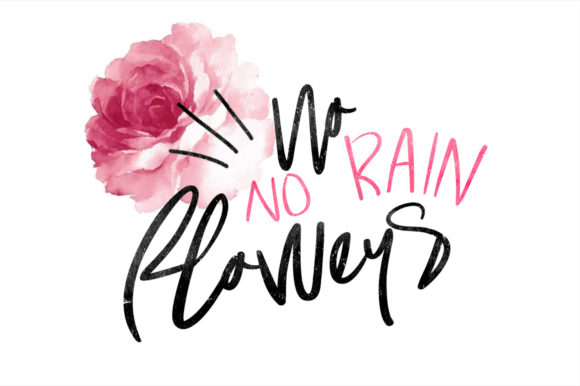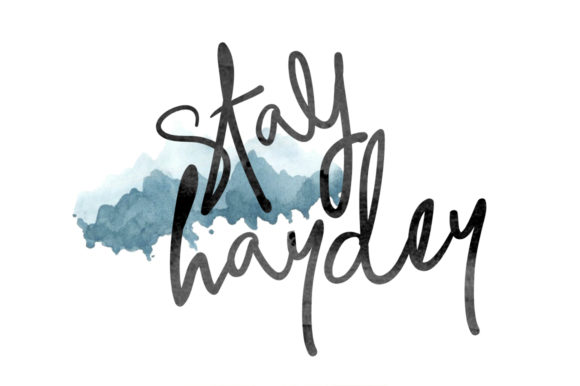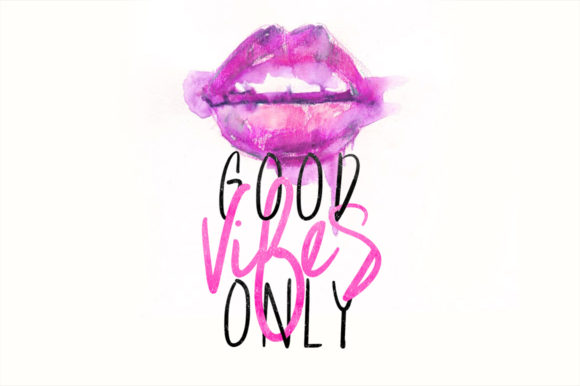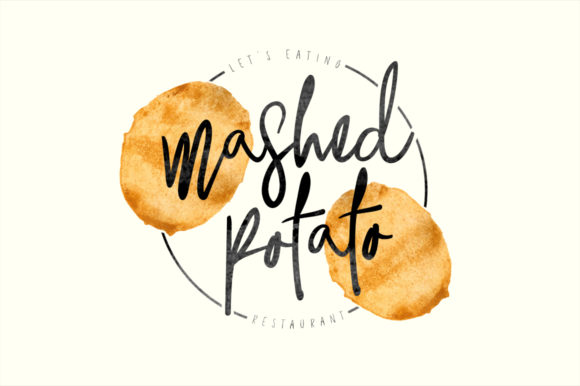
Without You Font
About Without You Font
Without You is a casual handwritten font. Clean and a little bit quirky, this font is the perfect fit for all of your logos, branding, social media, and crafty DIY projects.